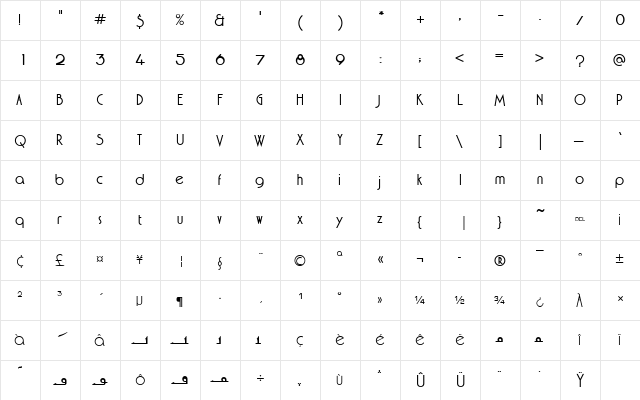
AGA Mashq V2 㔞 Regular
| Foundry | Almedia Interactive Ltd., Mohammad Alagha |
| Designer | Mohammad Alagha |
Design Context for AGA Mashq V2 㔞 Typeface
AGA Mashq V2 㔞 is a composed and adaptable typeface that performs quietly and consistently across a wide range of design contexts.